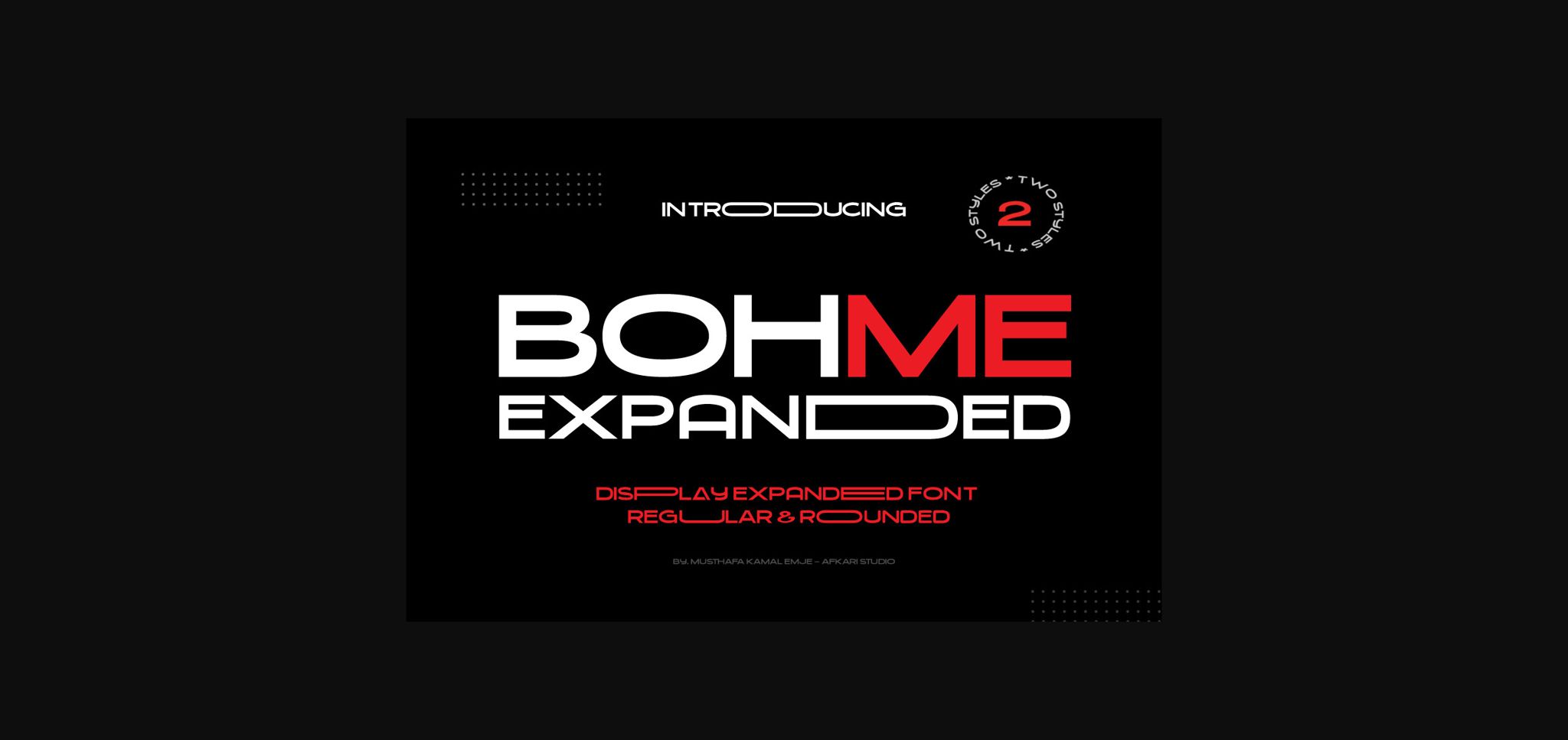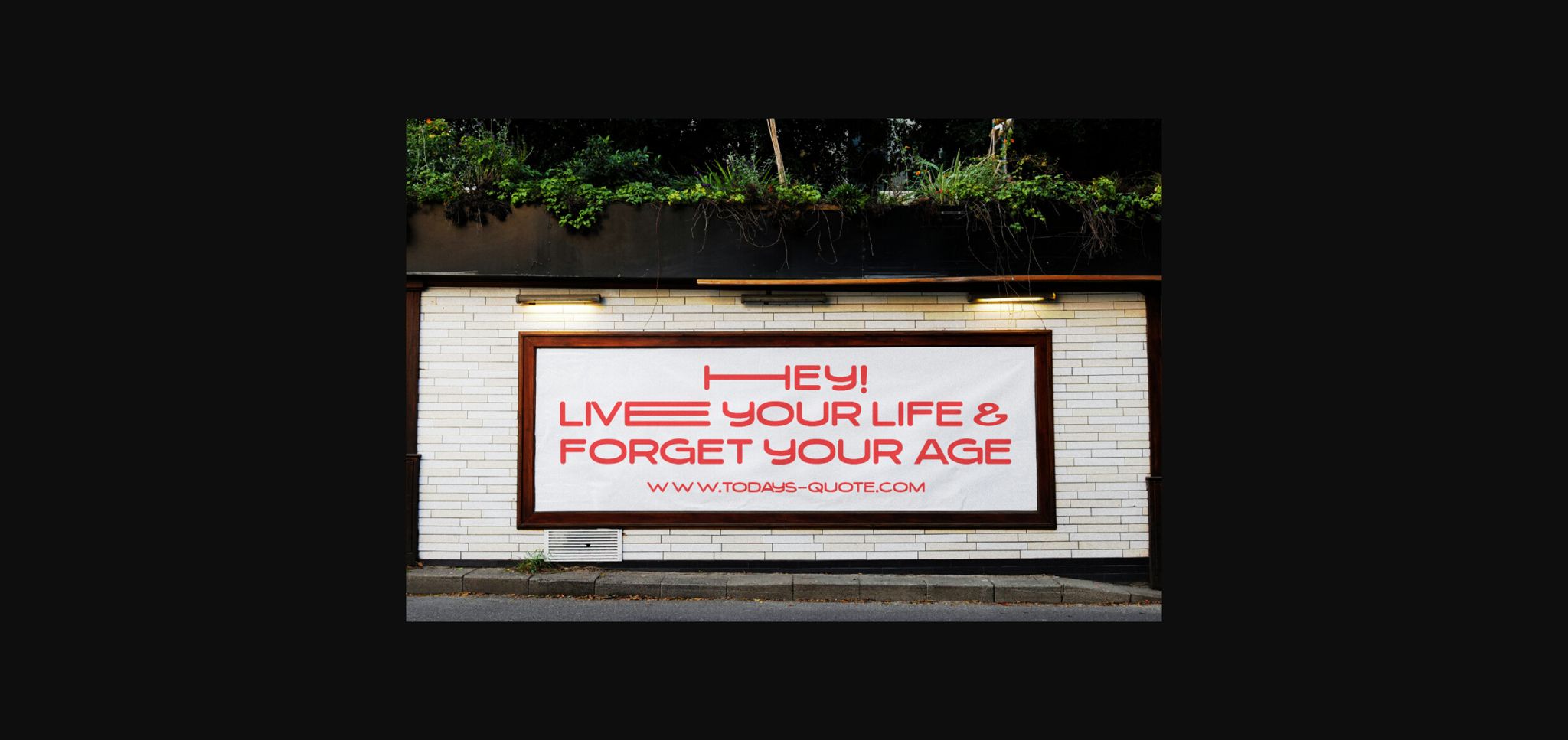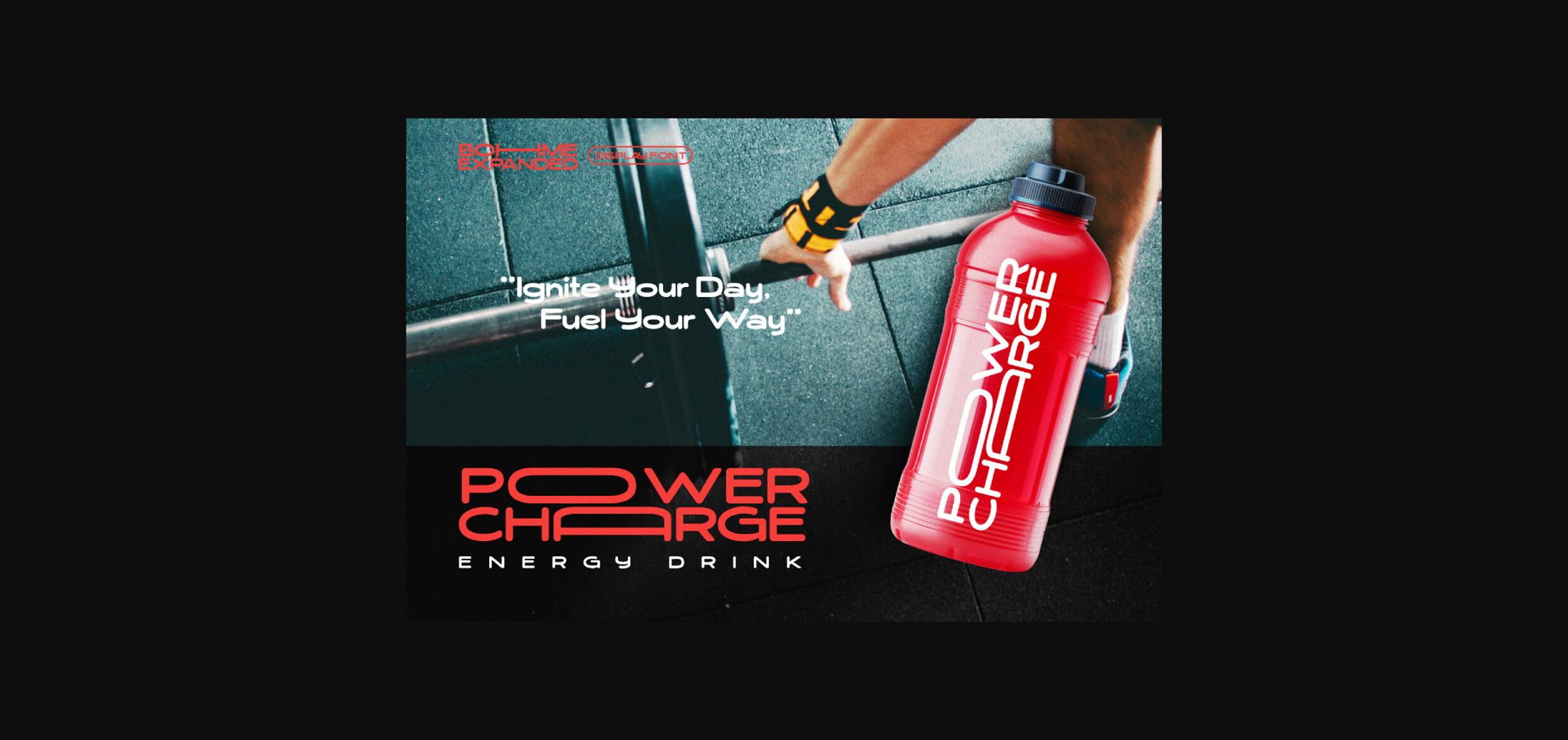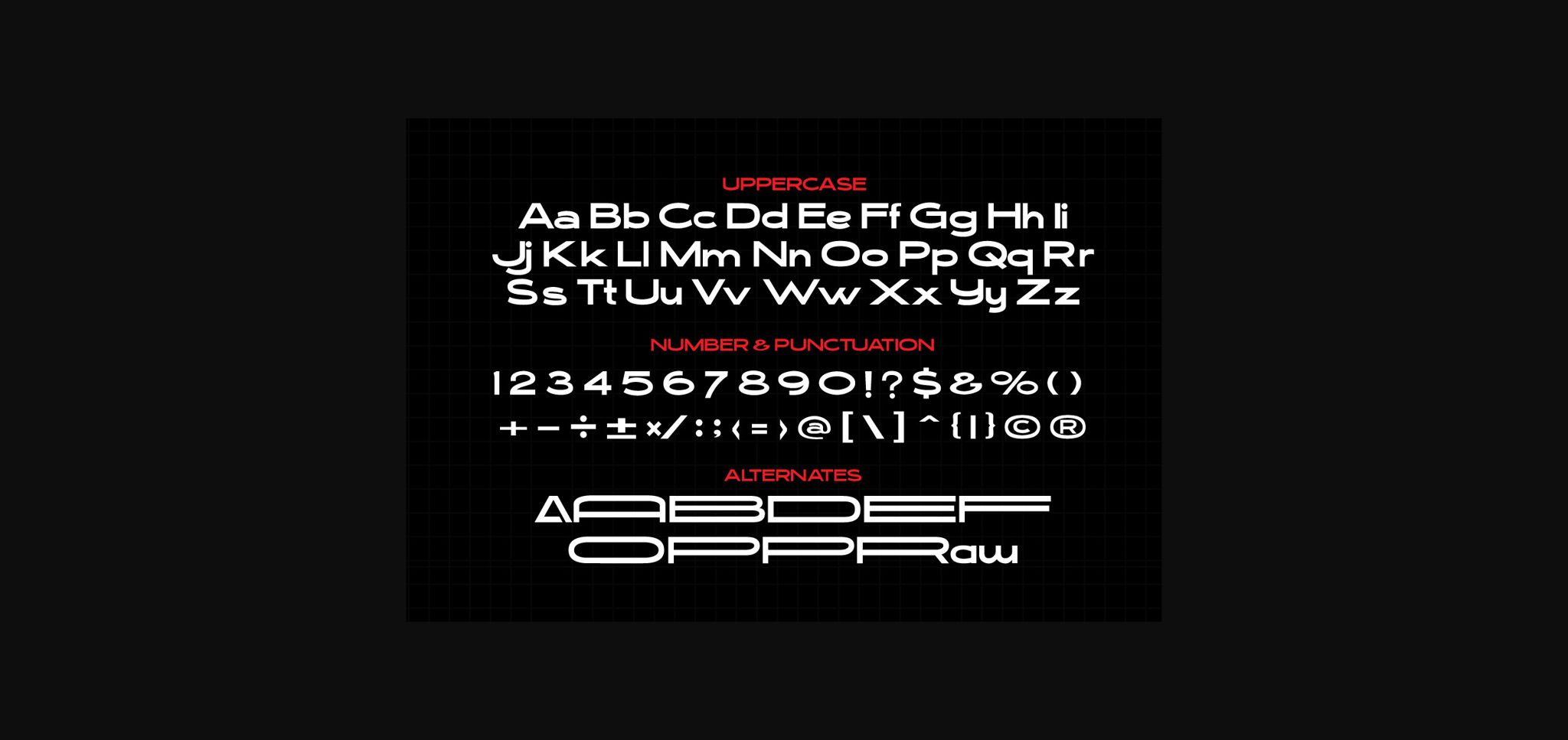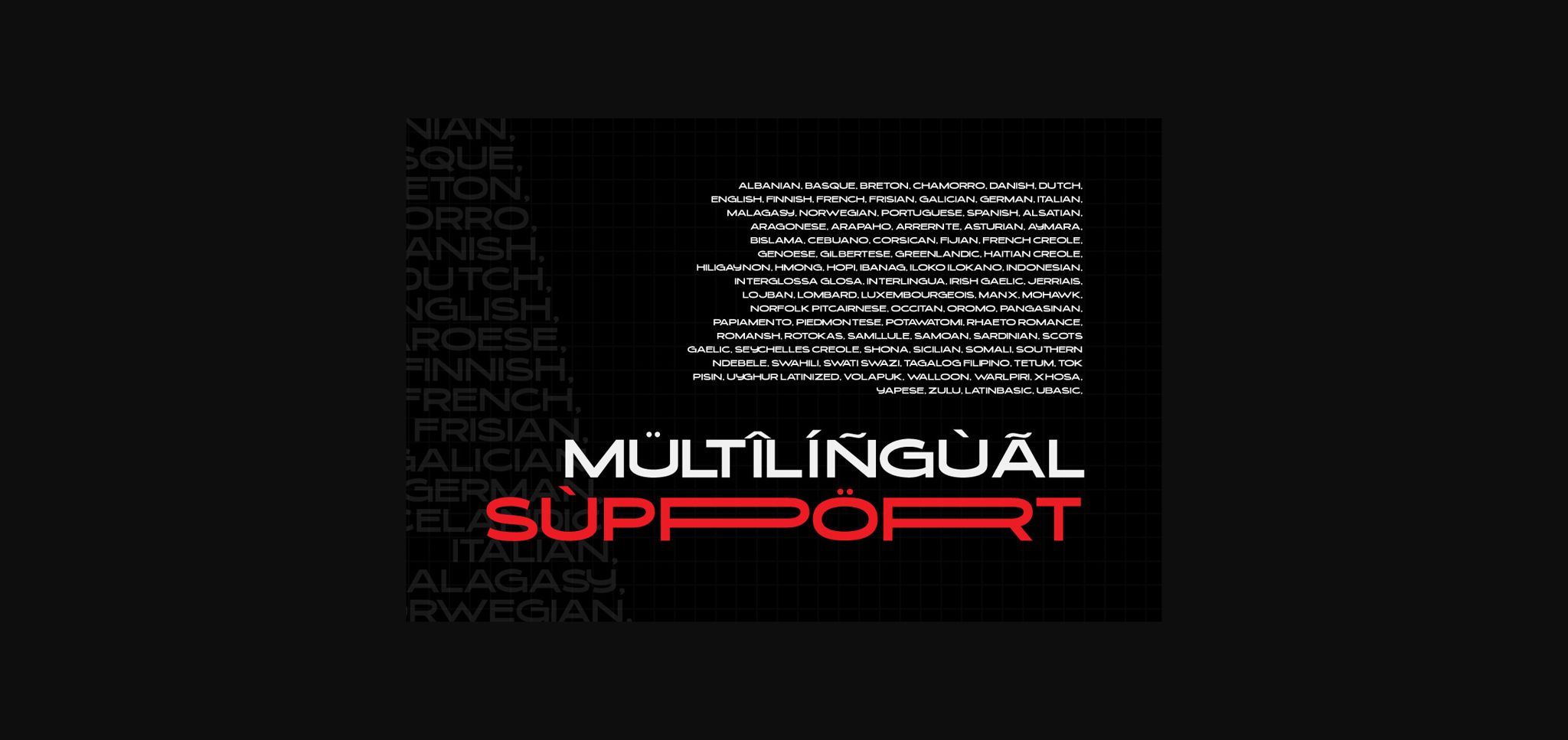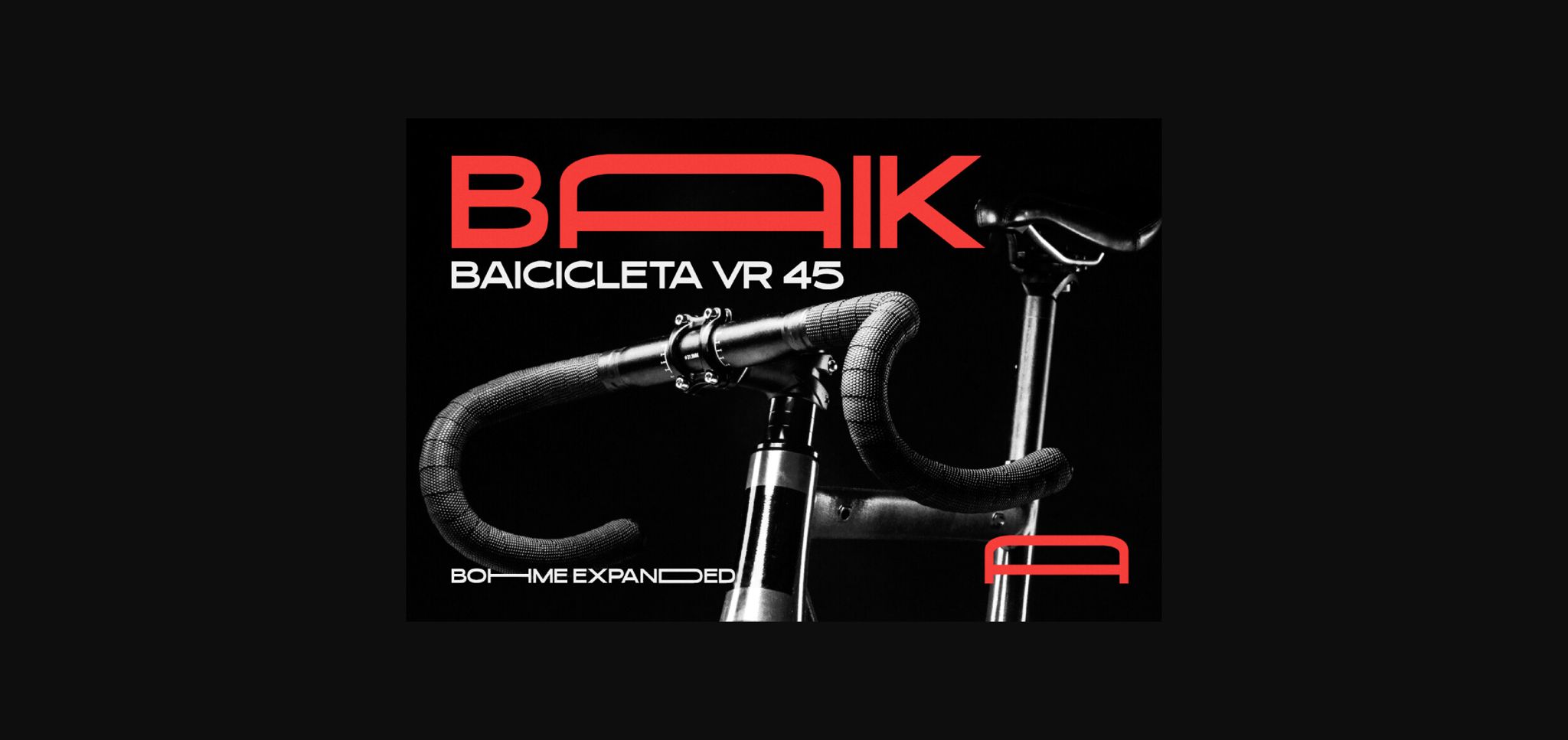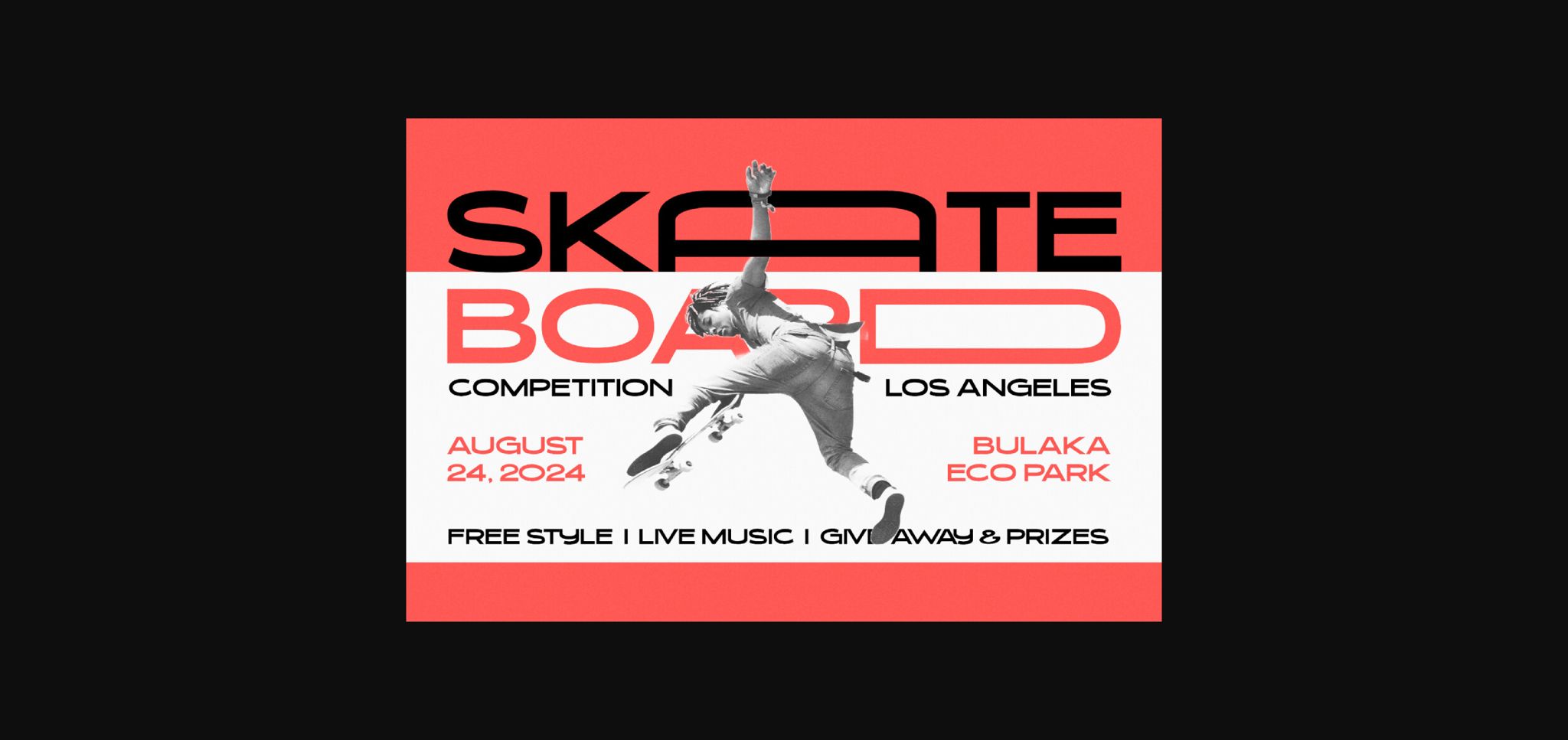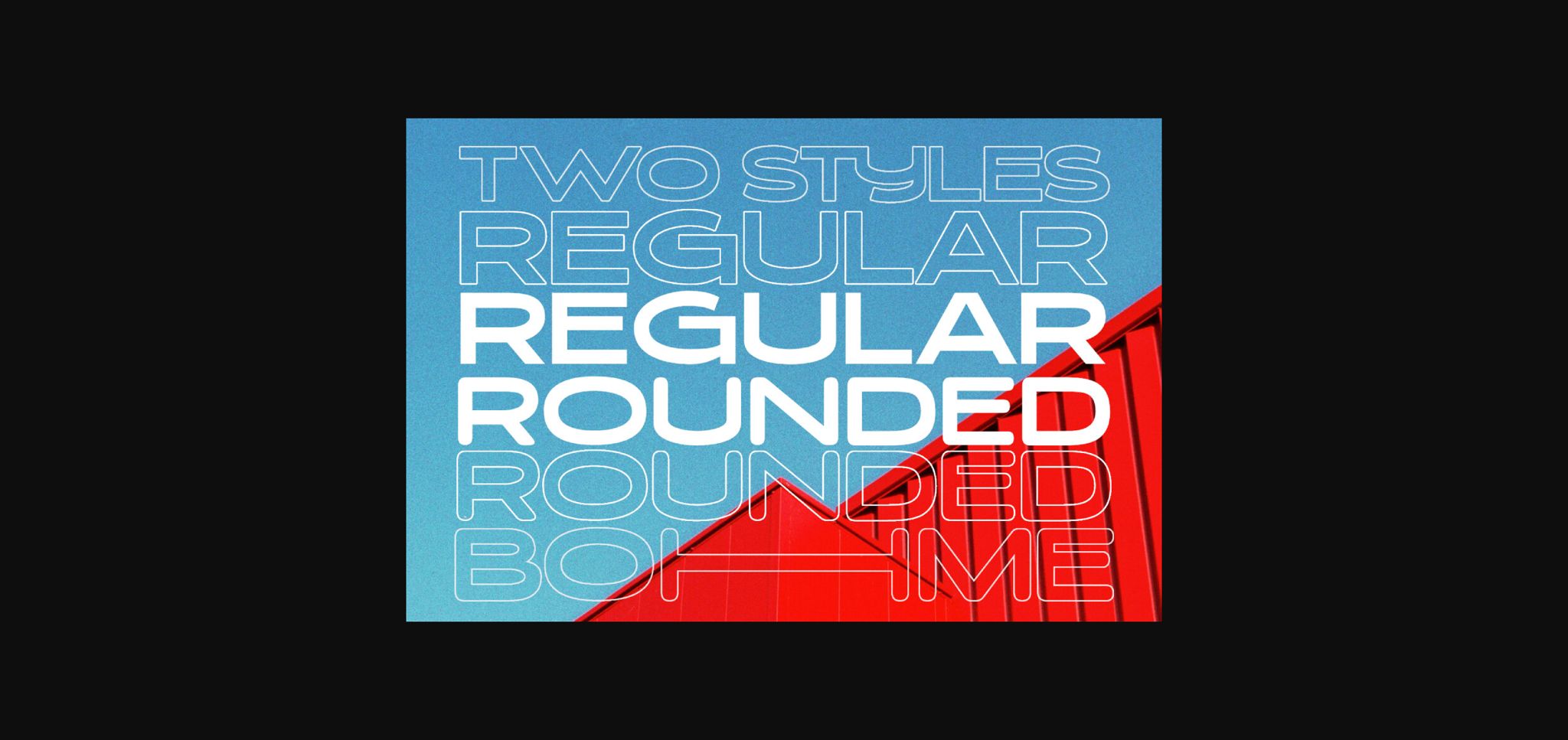
Bohme Expanded Font
About Bohme Expanded Font
Introducing Bohme Expanded, a dynamic and modern display sans serif font that takes typography to new heights. This font, characterized by its bold and expansive design, is crafted for those seeking a typeface that seamlessly combines contemporary aesthetics with a touch of sophistication.